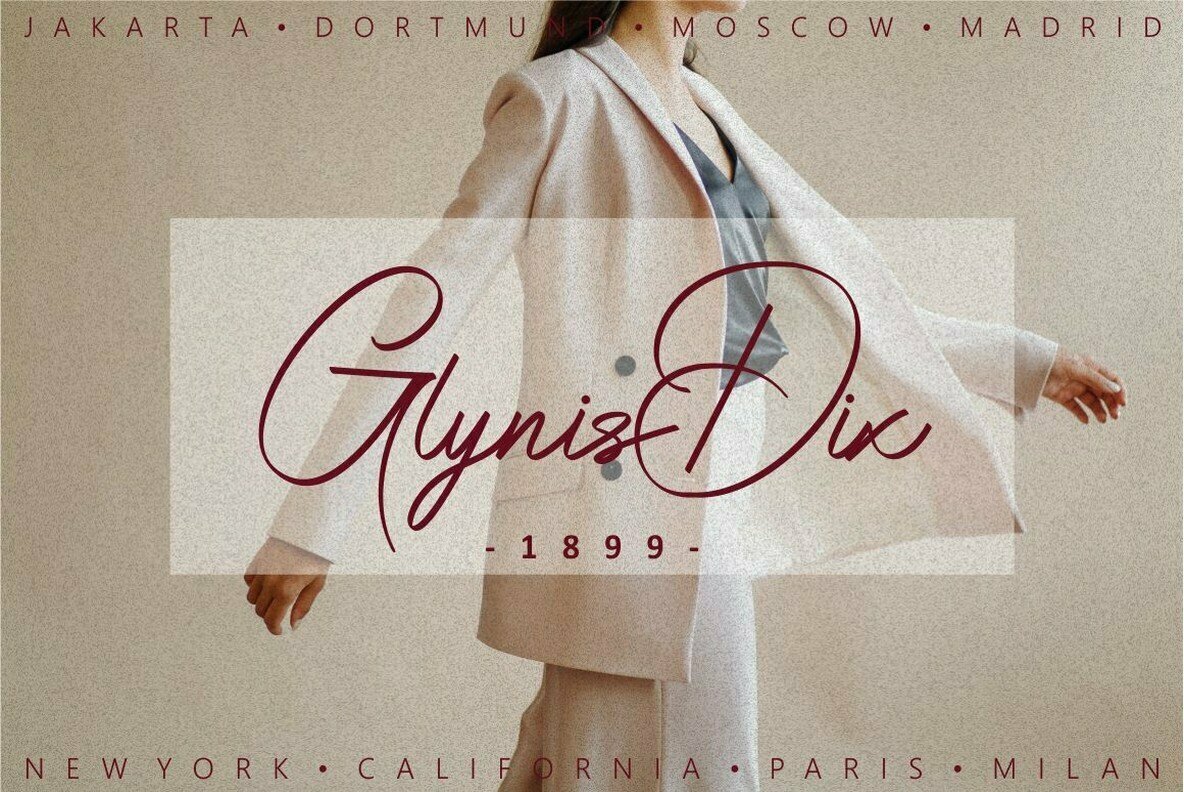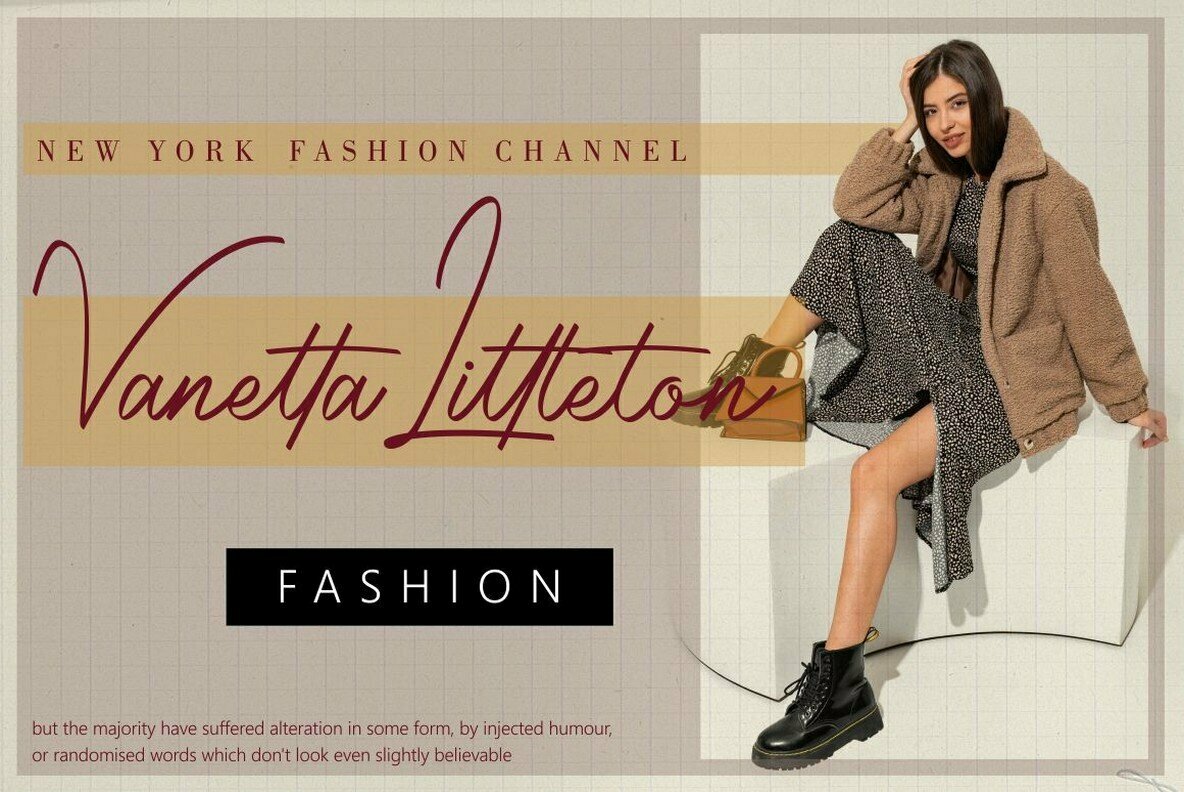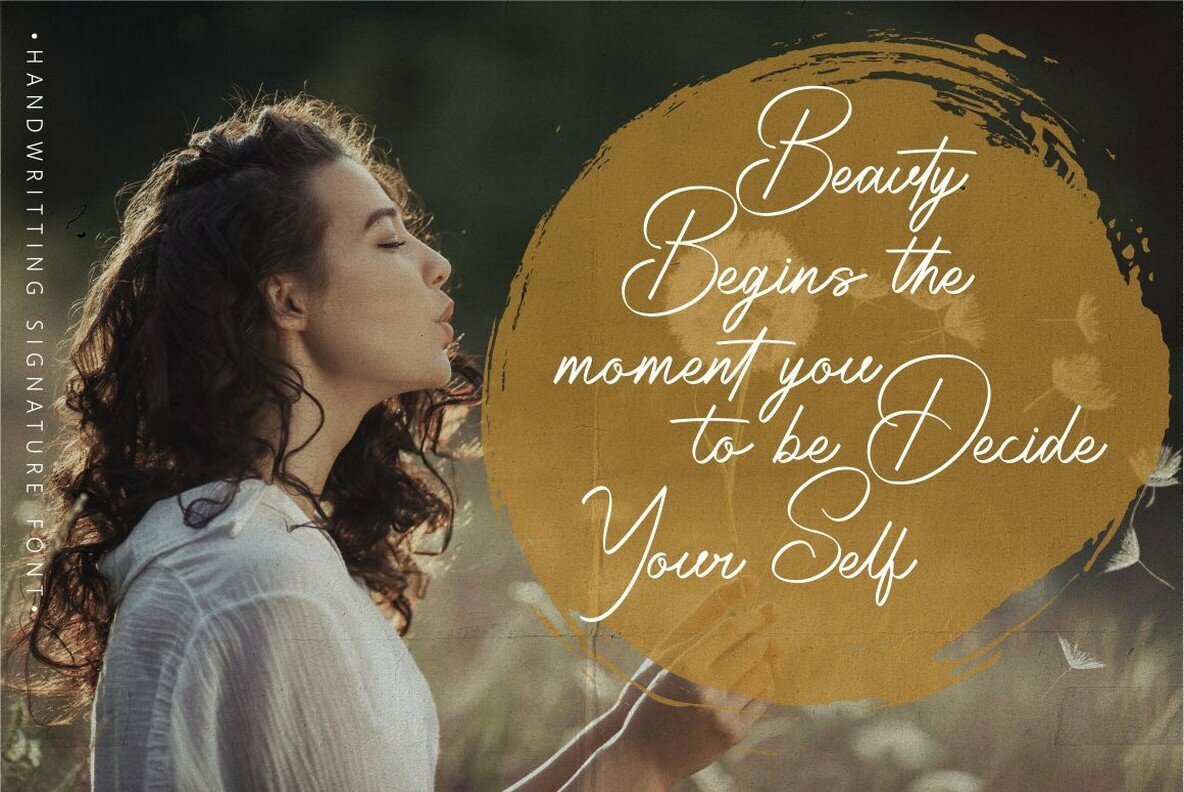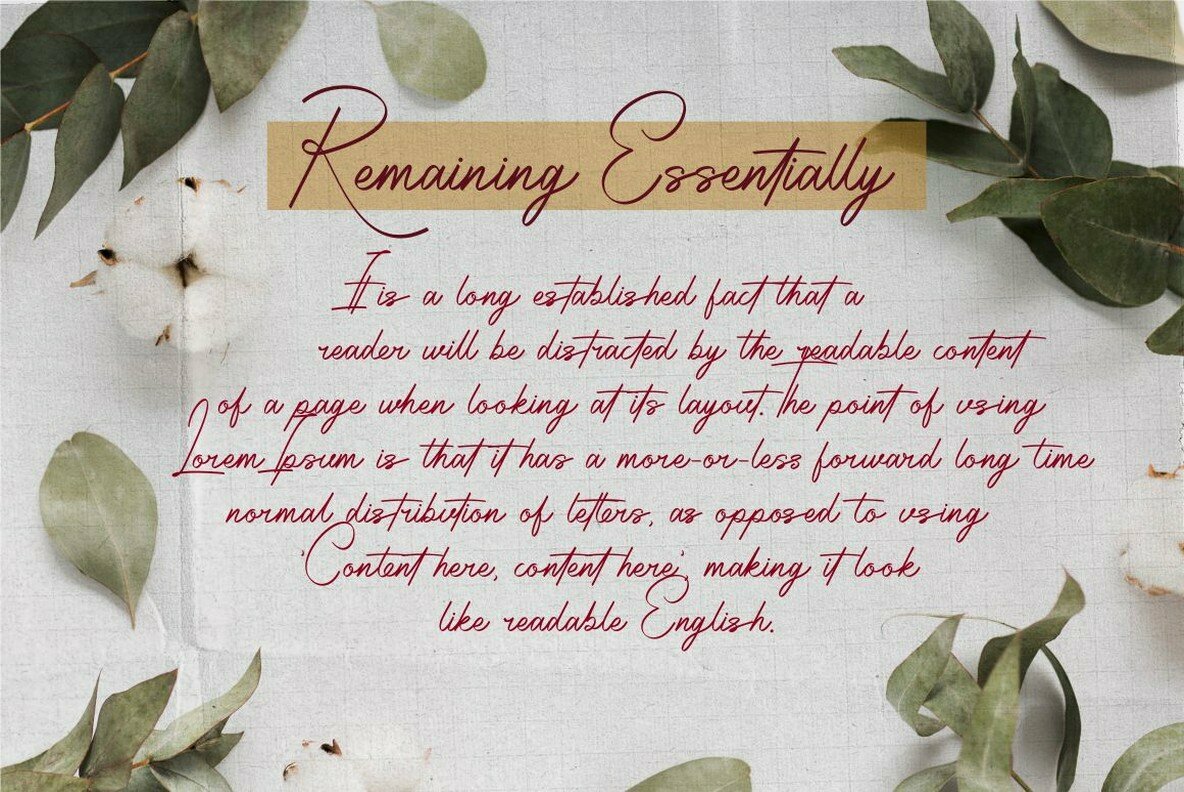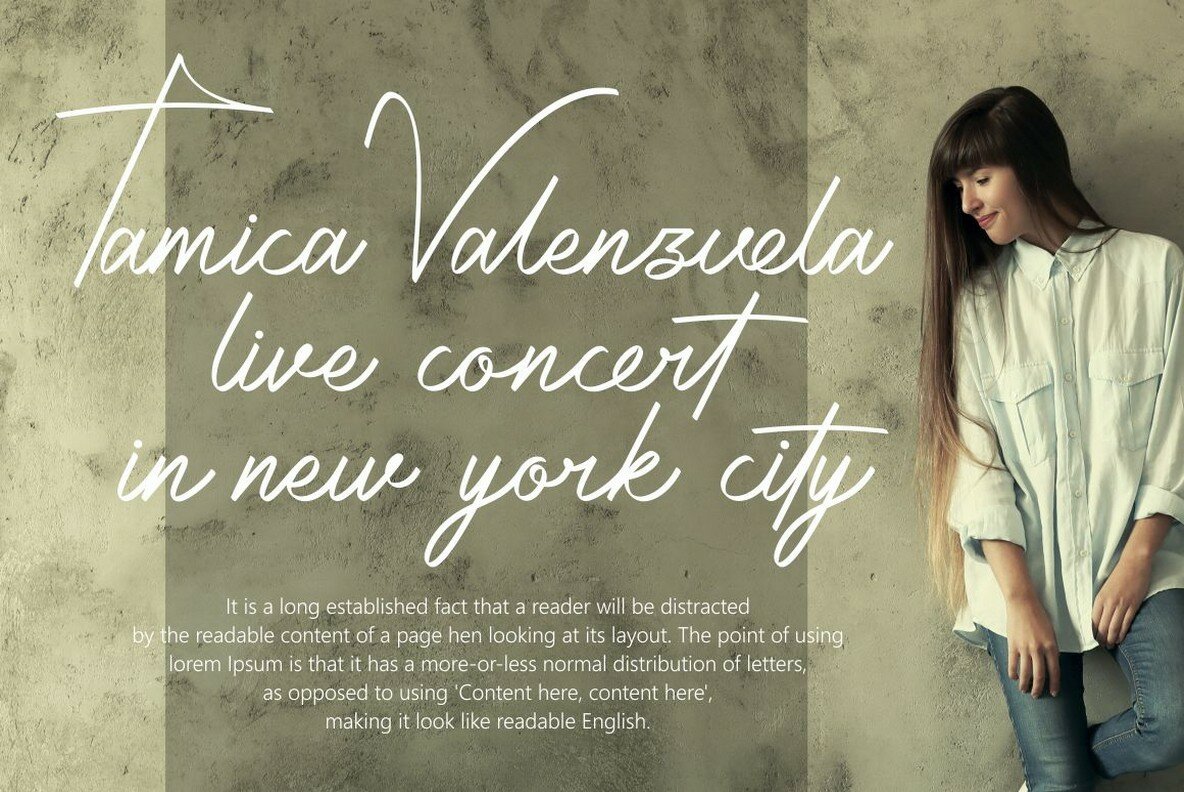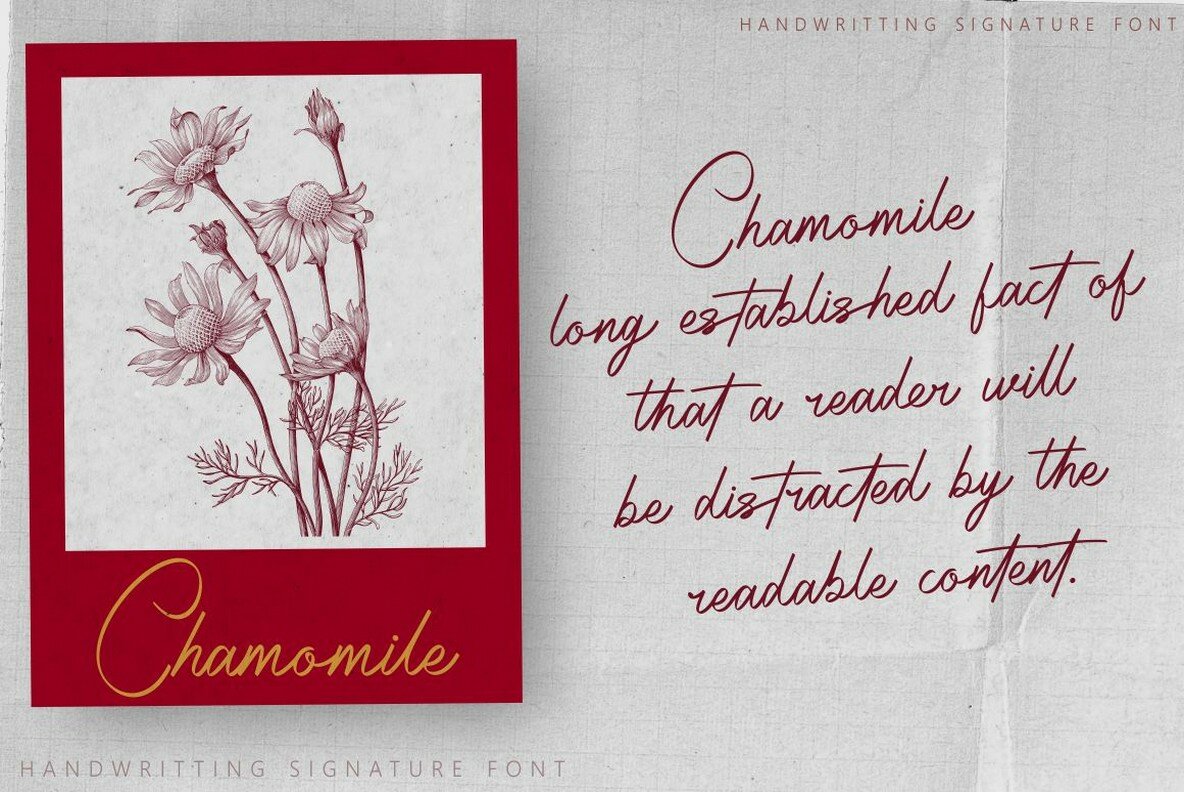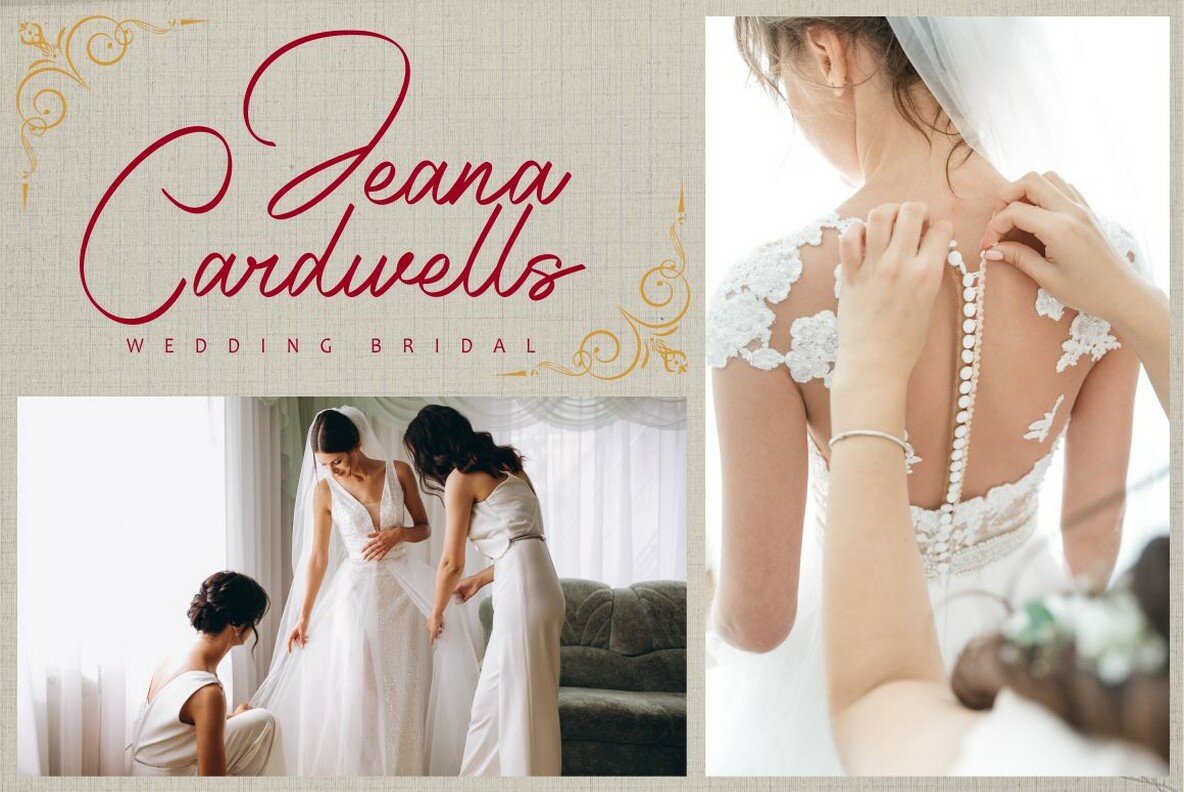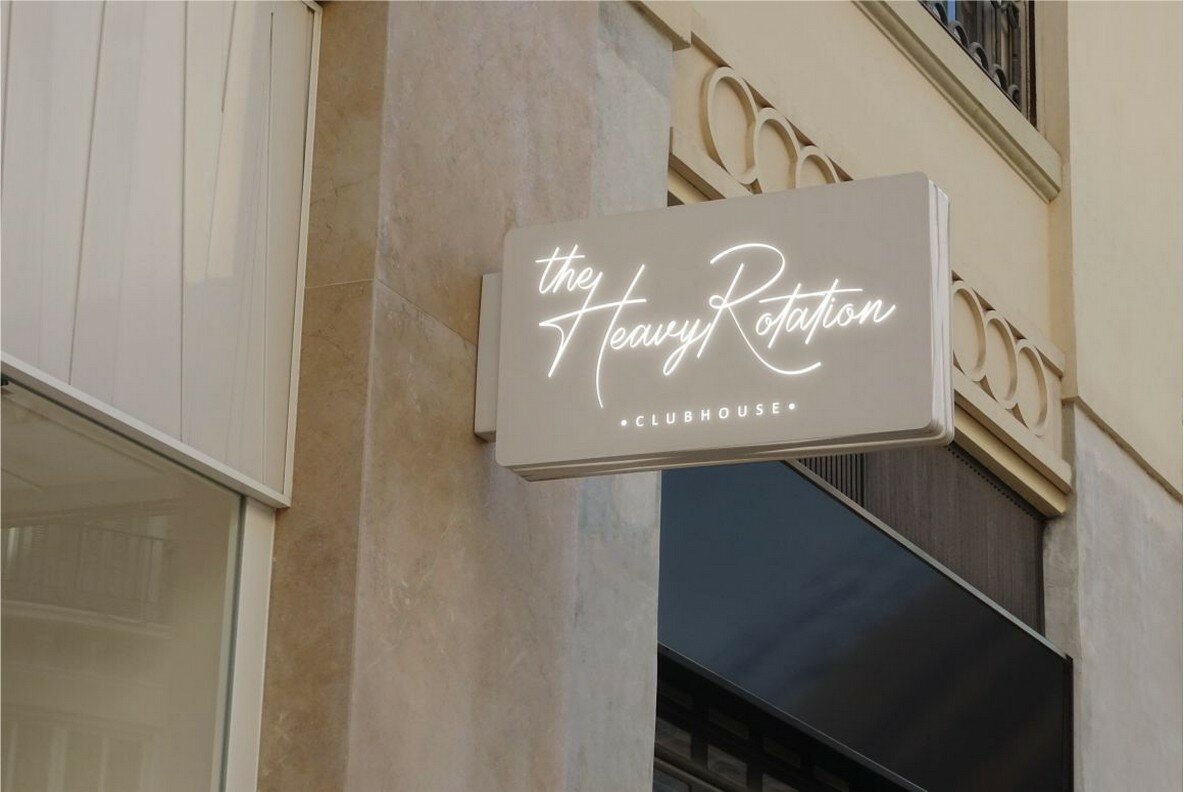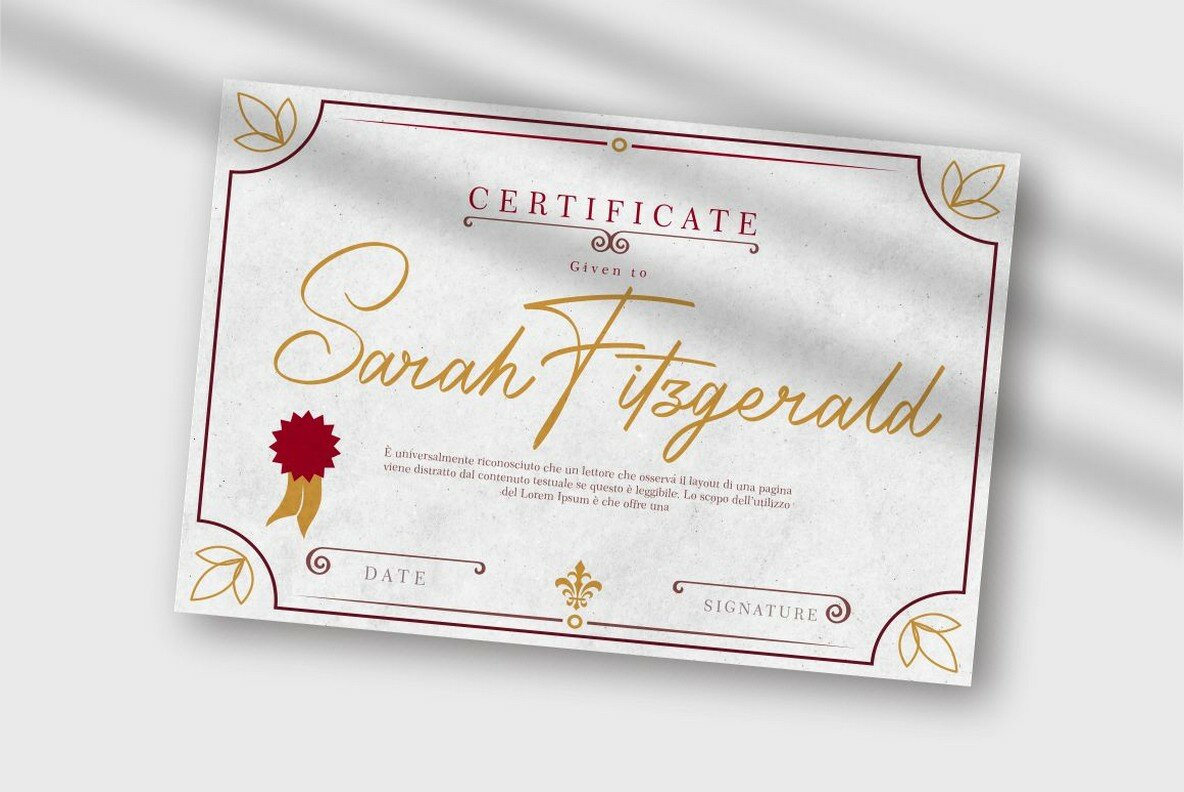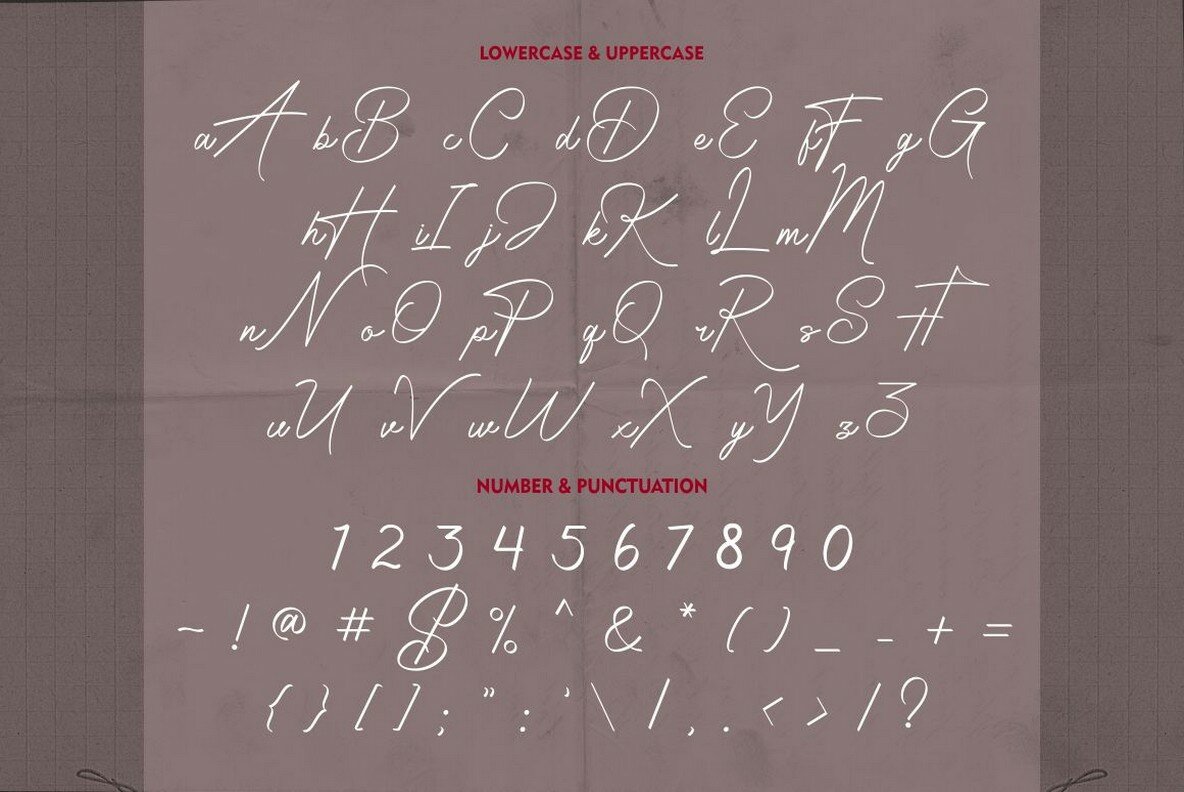
Radiantly Signature Font
Radiantly Signature
The Radiantly Signature font by Putra Novembria Candra Kusuma captures the essence of handwritten elegance with modern flair. This typeface provides a sophisticated blend of natural aesthetics, offering a genuine handwritten look akin to penmanship, making it ideal for enhancing your projects with a touch of luxury. This font shines in various applications, from signatures to branding, and extends its utility to invitations, labels, posters, logos, quotes, product packaging, headers, merchandise, social media, and greeting cards. Features:Radiantly Signature: Elegant Handwritten Font Style